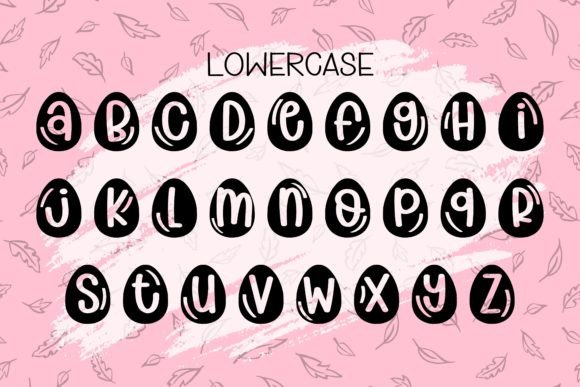
Easter Vibes Font
Easter Vibes is designed in a cute and adorable decorative font style. Use it for your lovely Easter Project and also your child-related project such as back to school, birthday party decoration, and any topic which needs bright and fun touch.